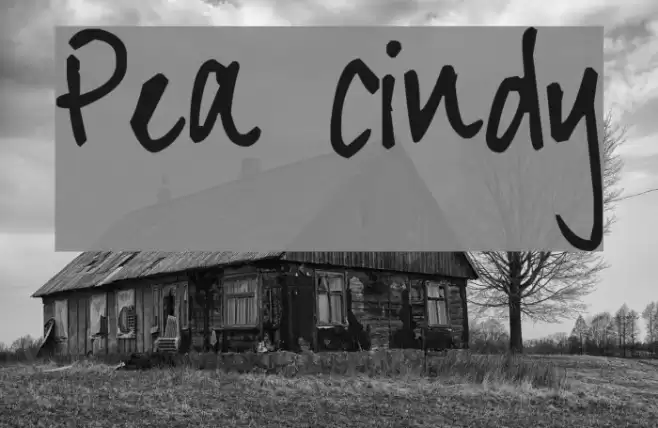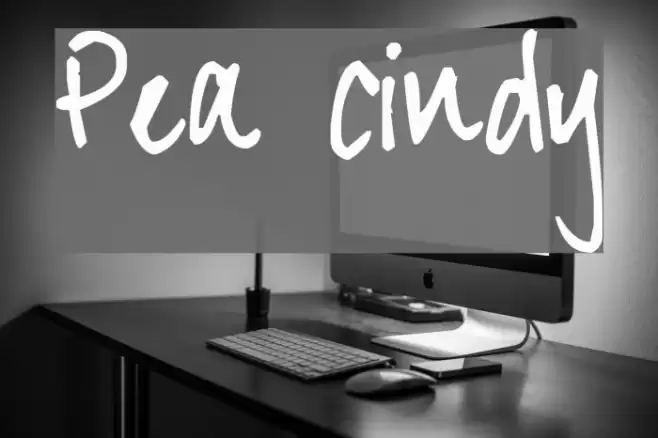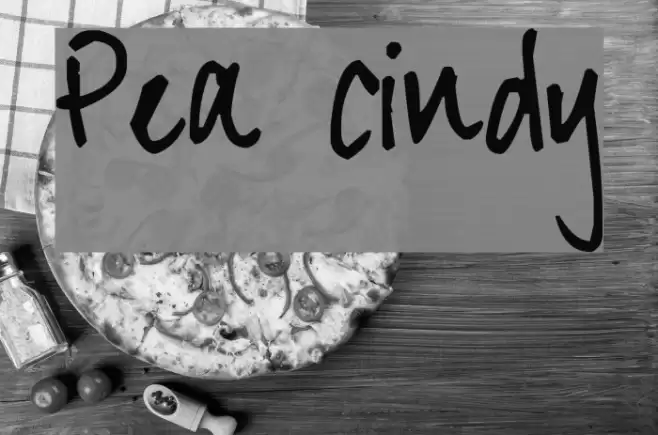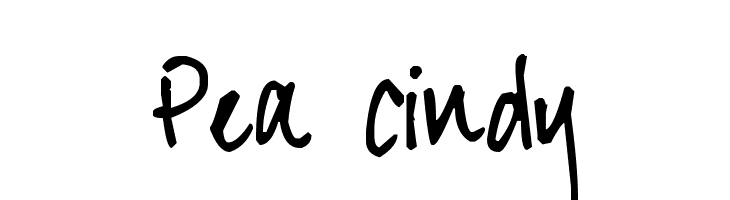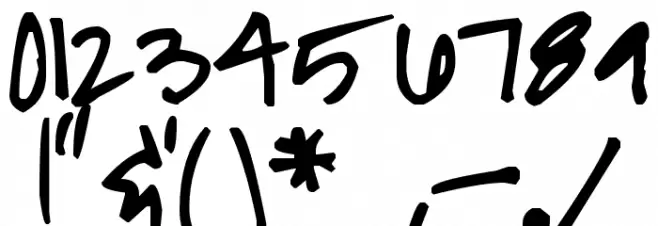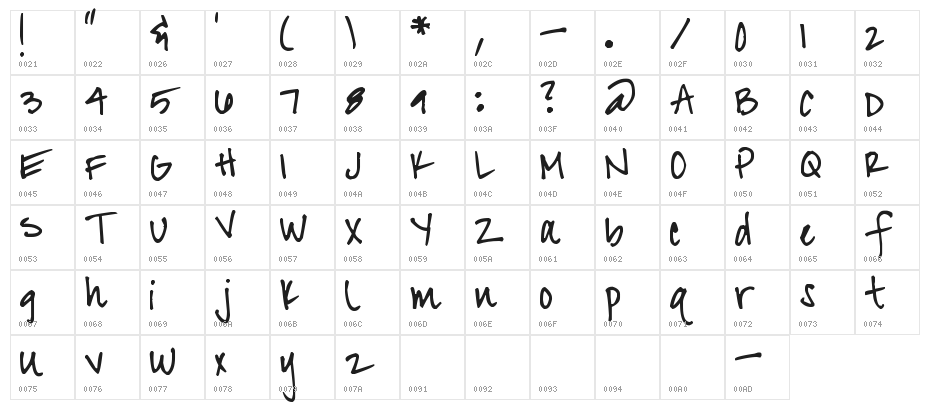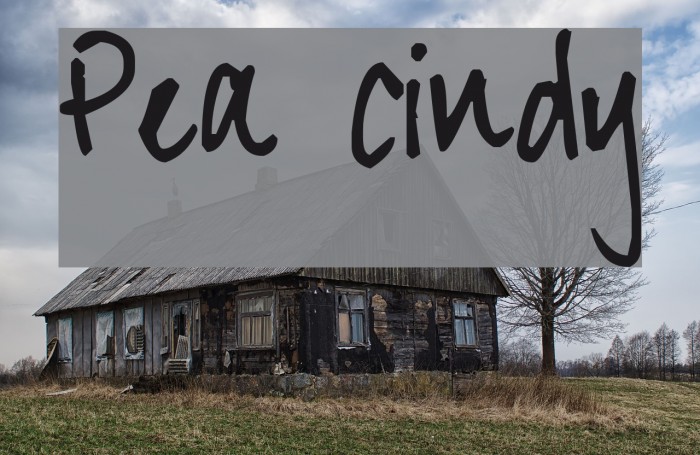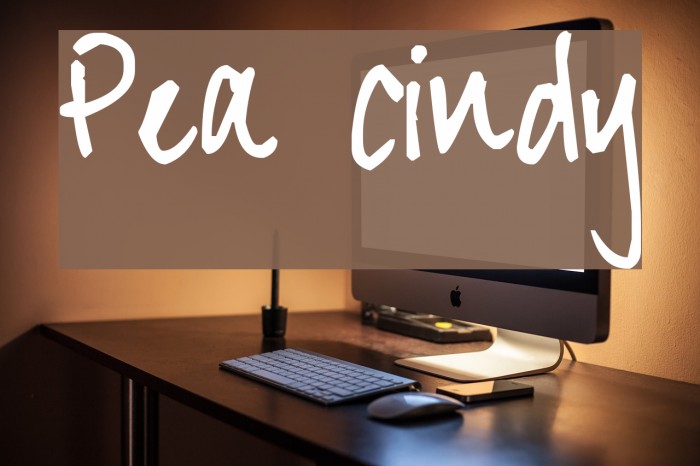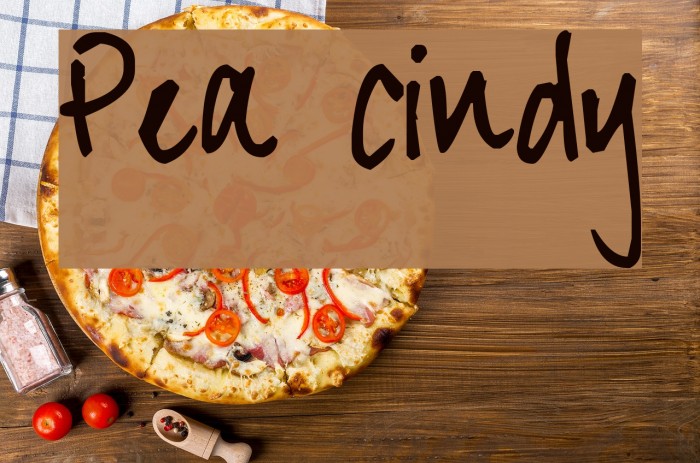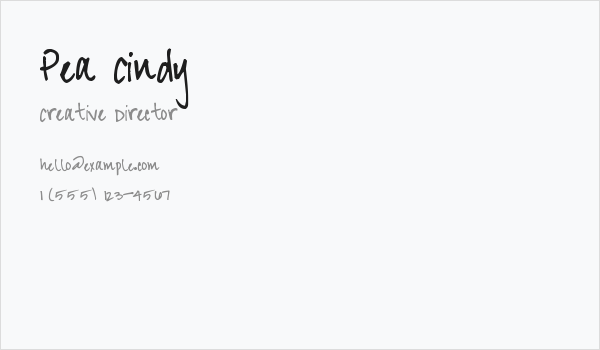
Pea Cindy Font
Pea Cindy Description
This font features a playful and casual handwritten style, characterized by its irregular strokes and dynamic flow. The letters are slightly slanted, giving a sense of movement and energy. The uppercase and lowercase letters maintain a consistent style, with rounded edges and a natural, organic feel. Numbers and special characters are crafted with the same lively touch, making the font versatile for various informal applications. Its unique charm lies in its ability to convey a personal and friendly tone, ideal for creative projects.
A playful, casual handwritten font with dynamic strokes from Uncategorized fonts.
- Proposed Projects: Ideal for greeting cards, personal blogs, creative posters, and informal branding.
- Overall Style: Casual, Playful
- Use Case: Headlines, Informal text, Creative projects